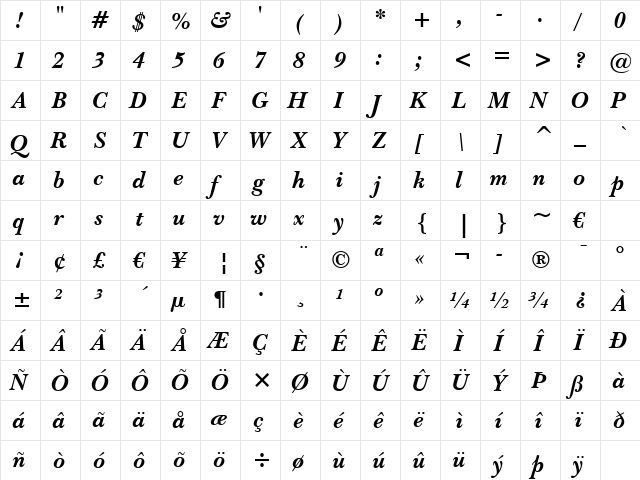
Baskervlle2 BT Bold Italic Font Preview
Design Context for Baskervlle2 BT Typeface
Baskervlle2 BT offers clean, dependable letterforms without strong stylistic allegiance, making it a practical choice for designers who need flexibility. The dynamic lean of this cut emphasises speed and emphasis in any layout. Its bold stroke weight gives it real presence on the page.
Pro Tip: Try Baskervlle2 BT for annotation and caption copy alongside an upright companion — the contrast in angle creates a dynamic but ordered typographic system.